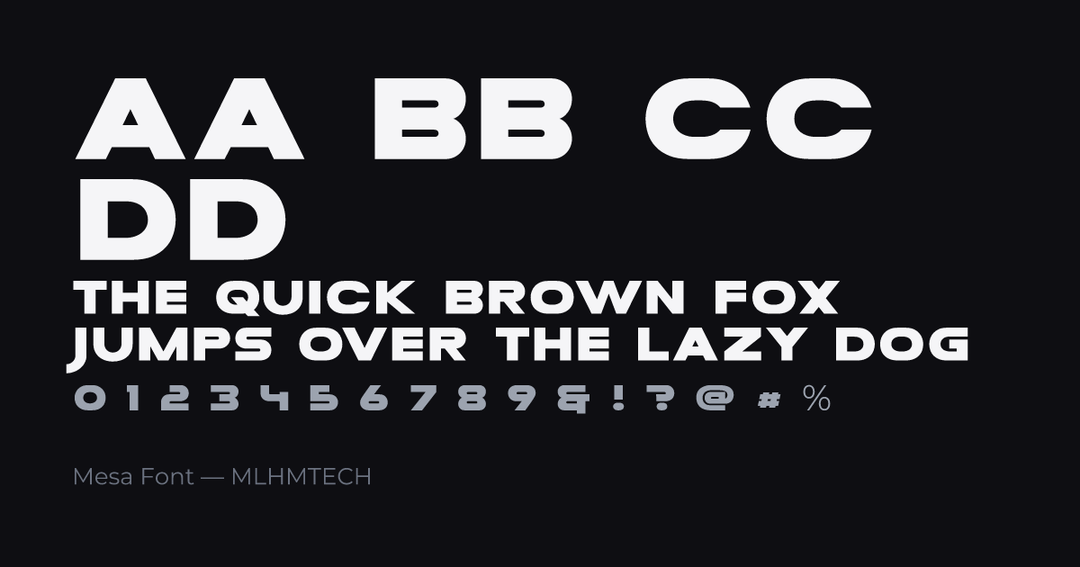
Mesa Font
Mesa is a modern, elegant display font that adds a touch of sophistication to any design. Perfect for branding, logos, and headlines.
Mesa is a beautifully crafted display font with clean lines and a contemporary feel. Its versatile design makes it suitable for a wide range of creative projects, from branding and logo design to editorial layouts and social media graphics.
Whether you're designing a logo, creating a poster, or adding a stylish touch to your website, Mesa will elevate your work with its elegant character.